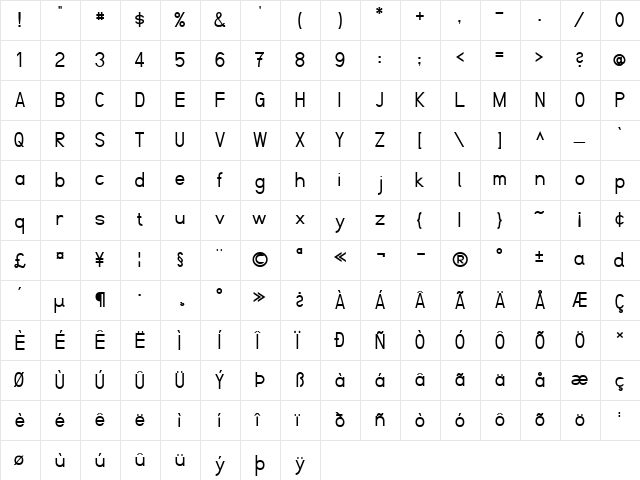
Fibel Nord Regular
| Designer | Peter Wiegel |
Design Context for Fibel Nord Typeface
Fibel Nord takes a measured approach to typography — its balanced proportions and neutral character make it a reliable workhorse for both digital and print work.